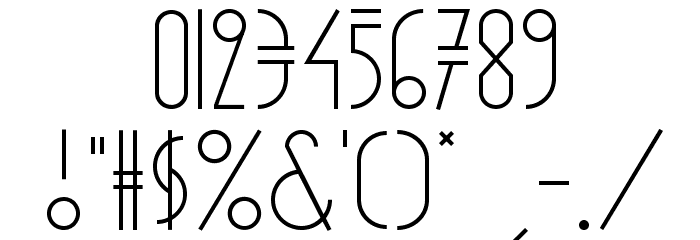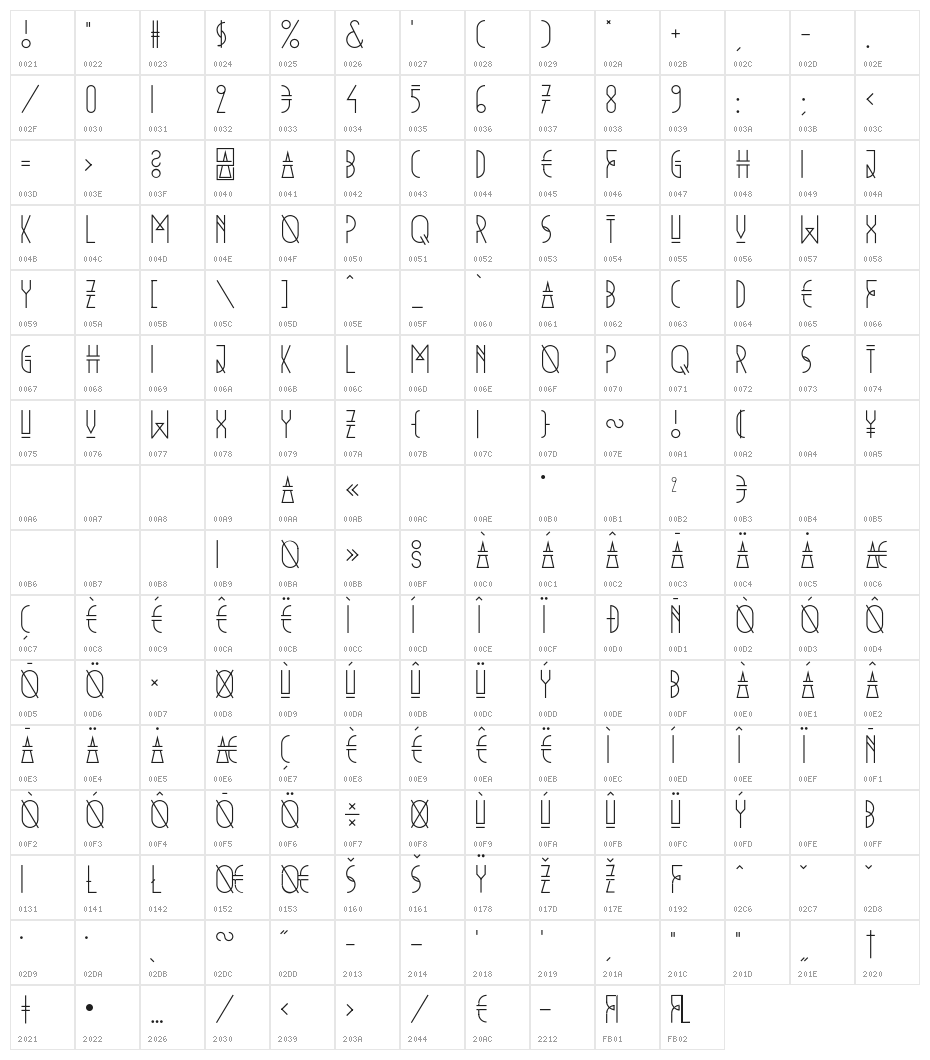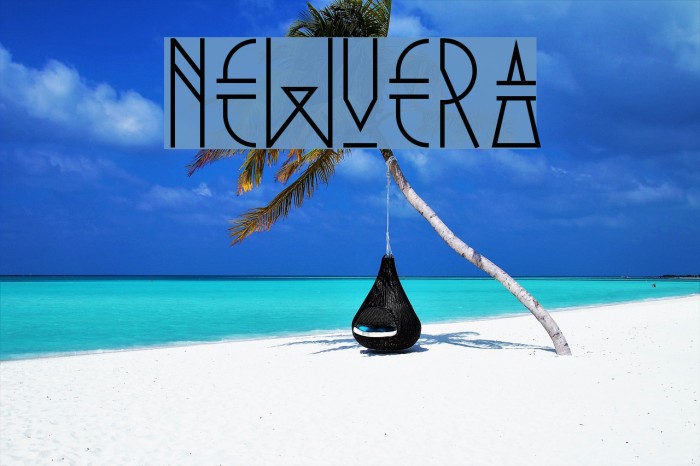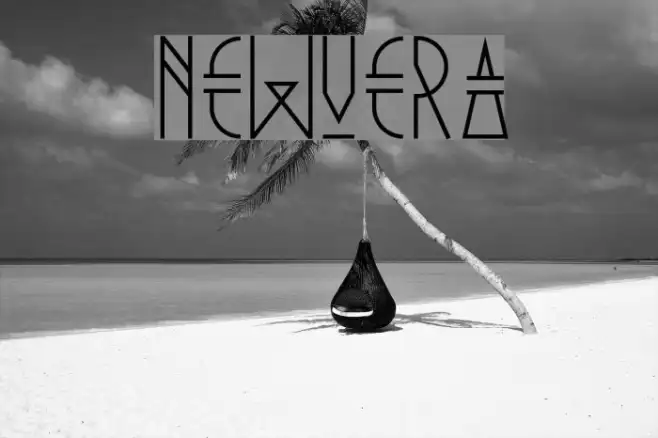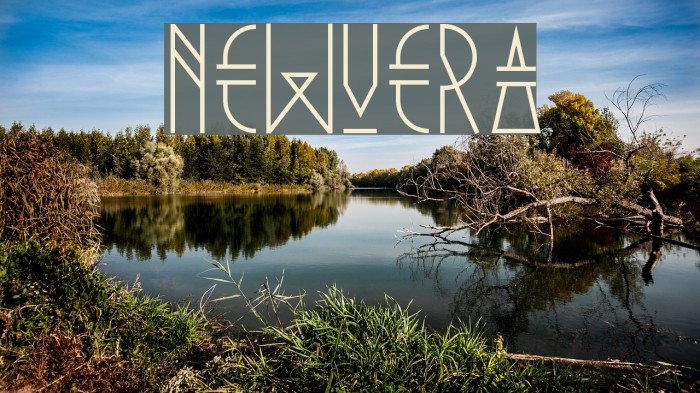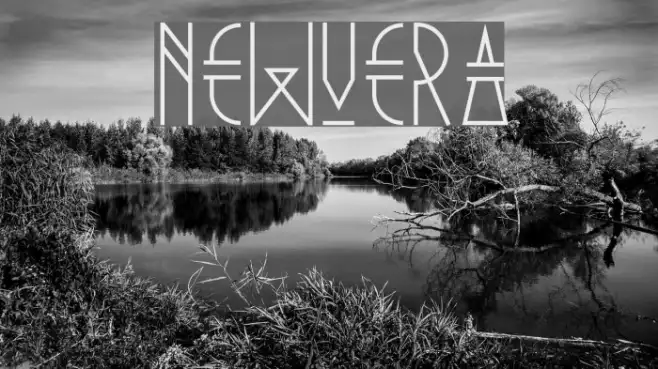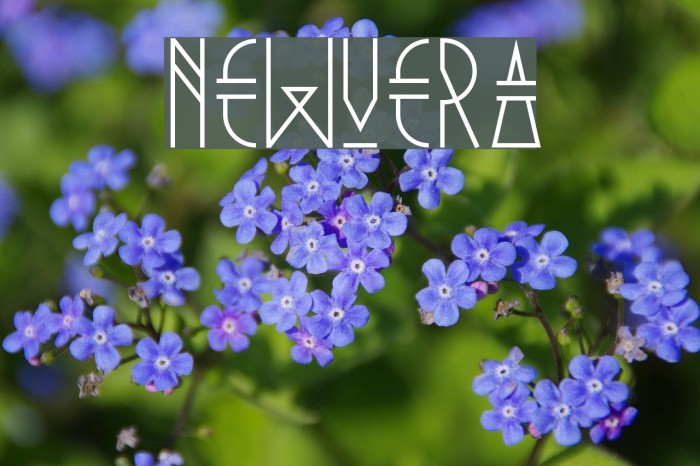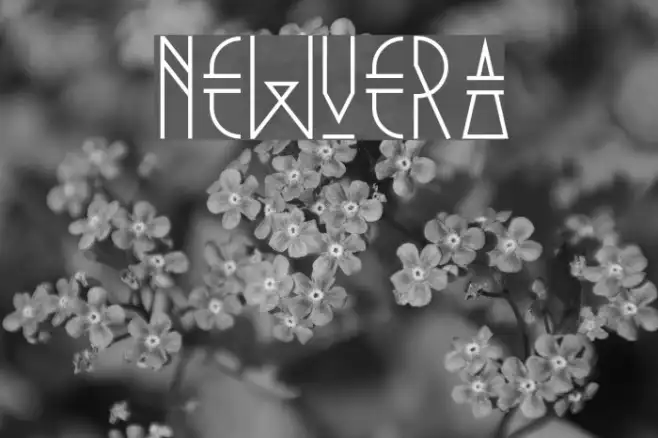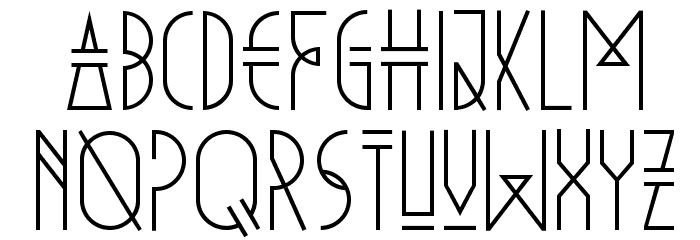
NewVera Font
NewVera Description
This font features a unique geometric design with a futuristic and modern aesthetic. The characters are constructed with straight lines and sharp angles, giving it a distinctive and edgy appearance. The uppercase letters are particularly striking, with some incorporating diagonal lines and triangular shapes that add to the overall dynamic feel. The numerals and special characters maintain this geometric style, ensuring consistency throughout. The font's clean and precise lines make it suitable for projects that require a contemporary and innovative look.
| Proposed Projects | Ideal for sci-fi themed designs, modern branding, tech-related projects, and innovative product packaging. |